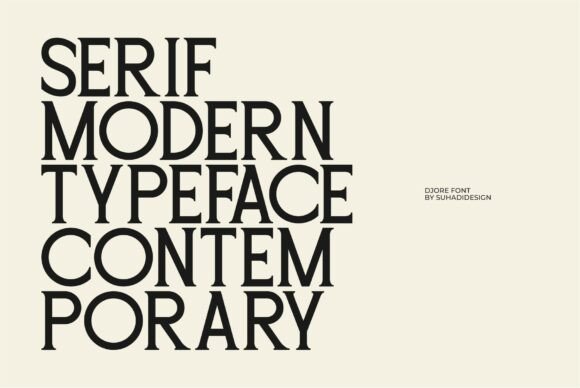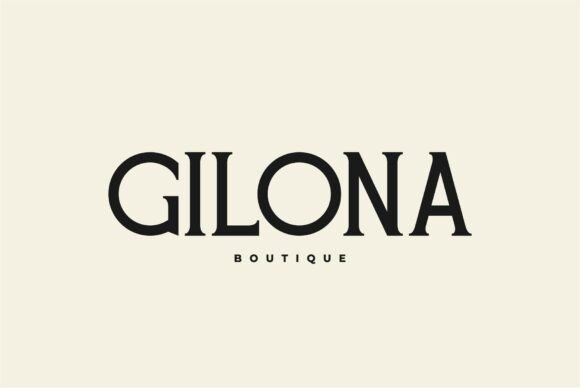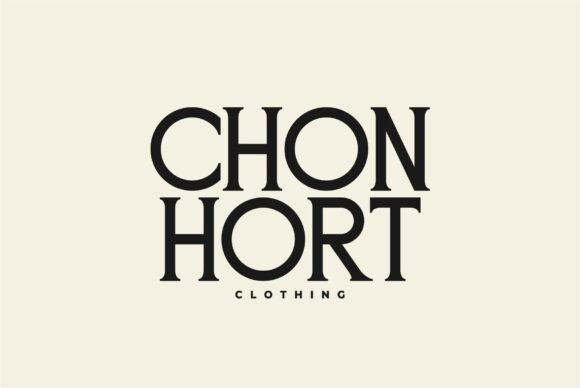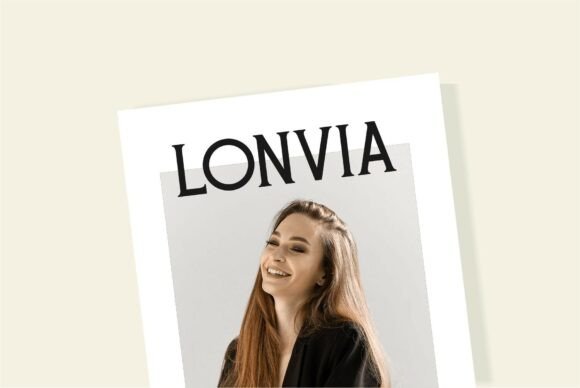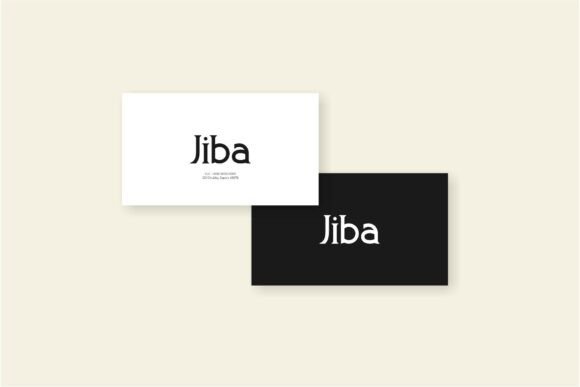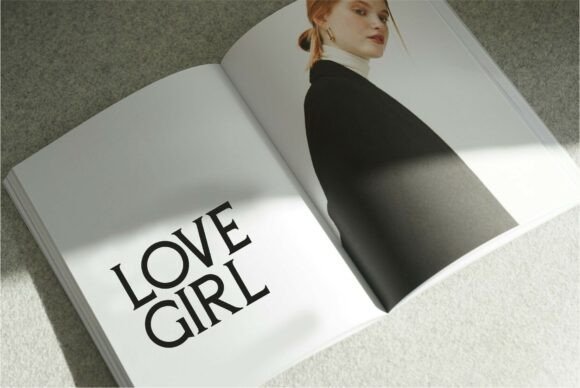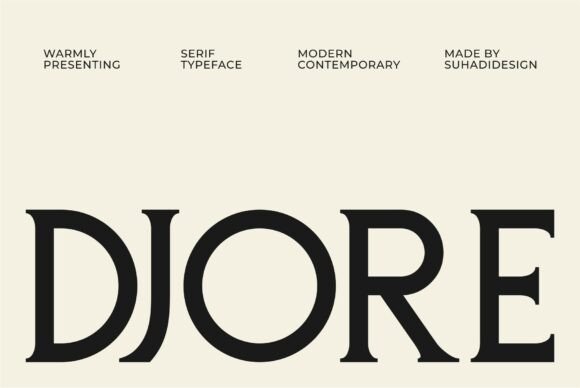
Introducing Djore Font: The Epitome of Modern Minimalist Serif Elegance
In the realm of typography, the quest for the perfect font is a perpetual journey. For designers and crafters, the right font can elevate a project from mundane to magnificent. It is with great excitement that we introduce the Djore Font, a modern serif typeface that has captured the hearts of both women and men with its elegant, contemporary design. This highly sought-after font is not just a typographical choice; it’s a statement of style and sophistication.
The Essence of Djore Font
Djore is more than just a font; it’s an experience. It embodies the perfect blend of modernity and classic elegance, making it a versatile choice for a wide array of projects. Whether you’re working on magazines, designs, books, publications, branding, business cards, social media posts, or any other creative endeavor, Djore is designed to enhance the aesthetic appeal and readability of your content.
Why Choose Djore Font?
- Elegant and Classy Design: Djore boasts an elegant, classy, and stylish look that is sure to make your designs stand out. Its modern minimalist serif design ensures that your content is not only readable but also visually appealing.
- Versatility: One of the key advantages of Djore is its versatility. It can be used across various platforms and projects, from print to digital media, making it a valuable addition to any designer’s toolkit.
- Contemporary Style: In today’s fast-paced world, staying contemporary is crucial. Djore’s cutting-edge style ensures that your designs are not only current but also ahead of the curve.
- Wide Range of Applications: Djore is perfect for a myriad of applications including magazines, designs, books, publications, branding, brand names, business cards, social media, classy designs, newspapers, beauty projects, and more.
The Impact of Djore on Design Quality
The quality of your designs can significantly influence how your message is received. With Djore, you can elevate the quality of your work and make a lasting impression on your audience. Its elegant design and modern appeal ensure that your projects exude professionalism and style.
Who Can Benefit from Djore Font?
Djore is a valuable resource for a wide range of professionals and enthusiasts, including:
- Graphic Designers: Looking for a modern serif font that can add elegance to their designs.
- Content Creators: Seeking to enhance the visual appeal of their content across various platforms.
- Book and Magazine Publishers: Needing a font that offers readability and style for their publications.
- Brand Strategists: Aiming to create a sophisticated brand image through their typography choices.
- Digital Artists and Crafters: Exploring new typographical styles to incorporate into their art.
Djore Font is a game-changer in the world of typography. Its modern minimalist serif design, elegance, and versatility make it an indispensable tool for anyone looking to elevate their design quality. Whether you’re a professional designer or a crafting enthusiast, Djore offers the perfect blend of style, sophistication, and readability. It’s not just a font; it’s a way to transform your designs and make them truly unforgettable.
In conclusion, if you’re on the lookout for a font that embodies modern elegance and versatility, look no further than Djore. It’s here to revolutionize your design projects and help you achieve the aesthetic excellence you’ve always aimed for.